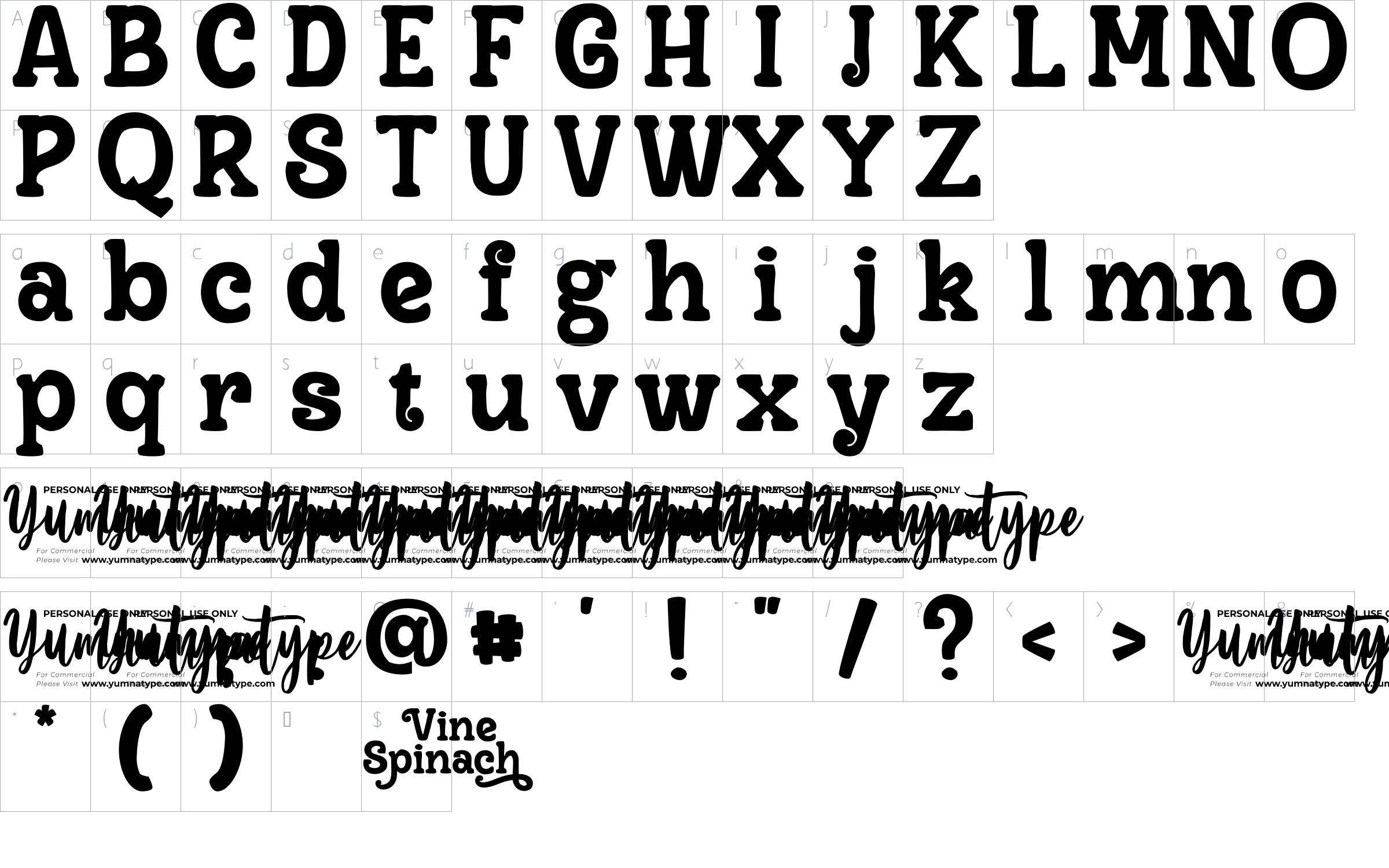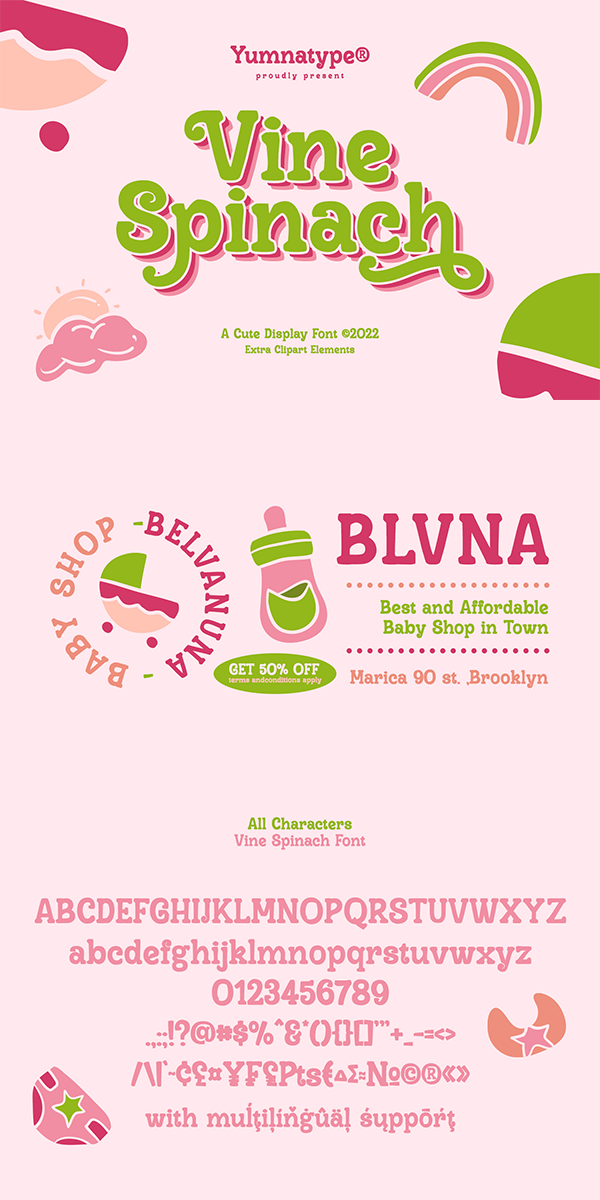
Vine Spinach Font
About Vine Spinach
Vine Spinach is a beautifully designed display font. The round and shadow style applied to the characters gives this font cute feel. While it’s easy to read, the dramatic bold and heavy style is very suitable to be used to create titles and logos. You also get illustrations as special extra that you can use as you wish.
-Uppercase and lowercase
This font would looks great on your branding, logos, social media quotes, stickers, posters, wall art, merchandise, social media, and many more. Get more inspiration about how to use it by seeing the font preview.